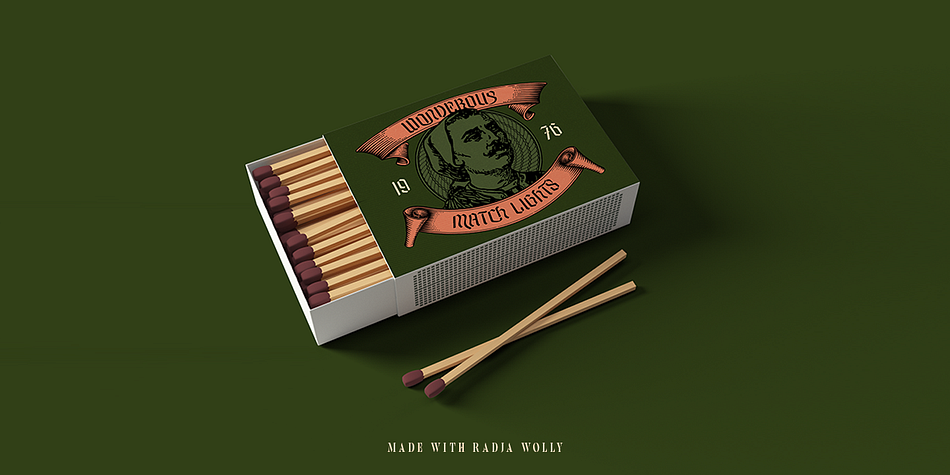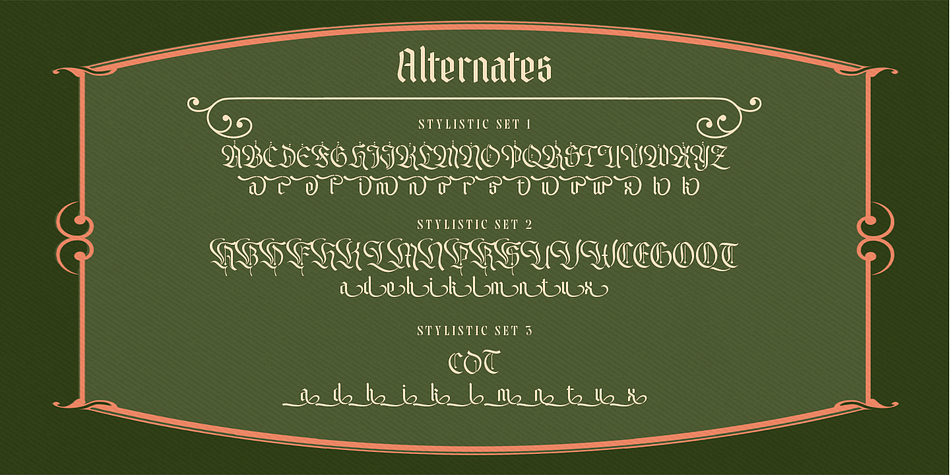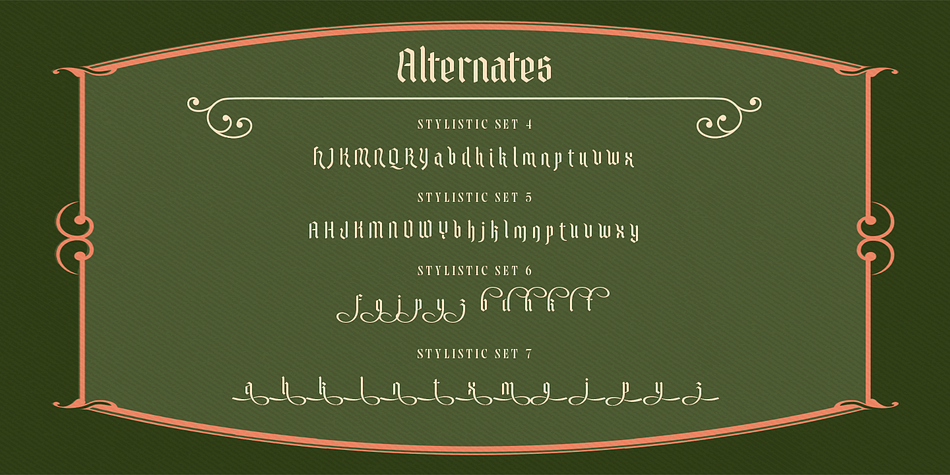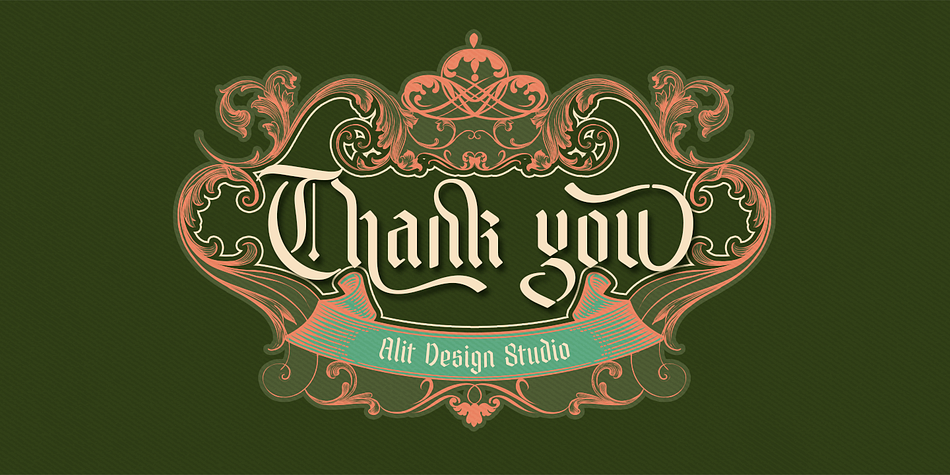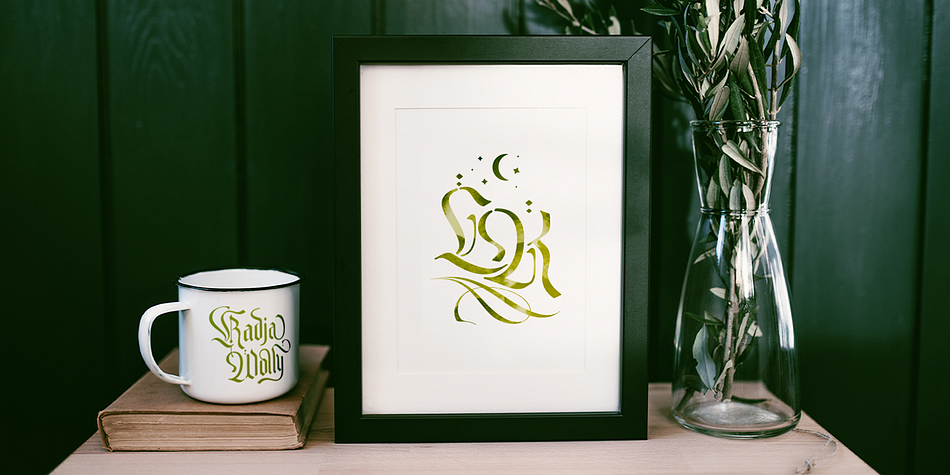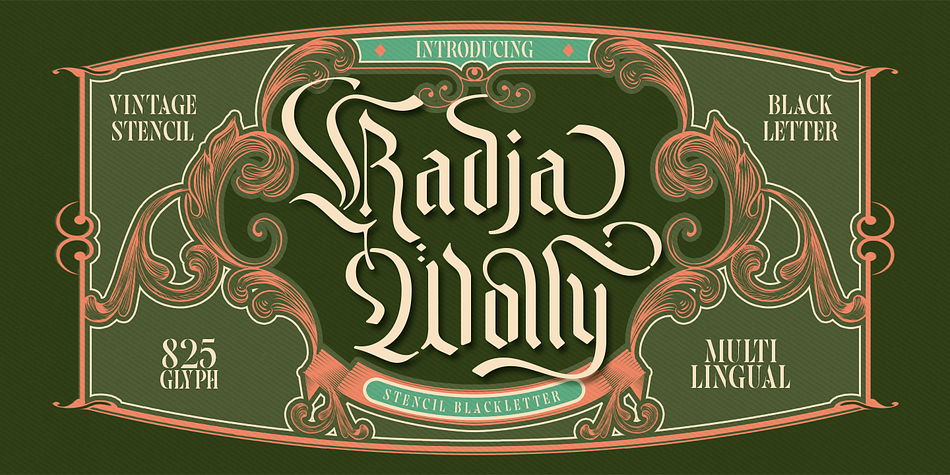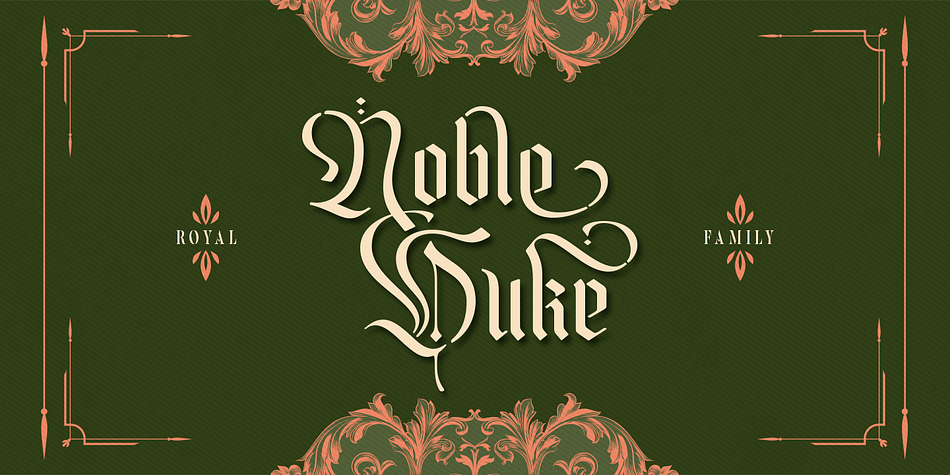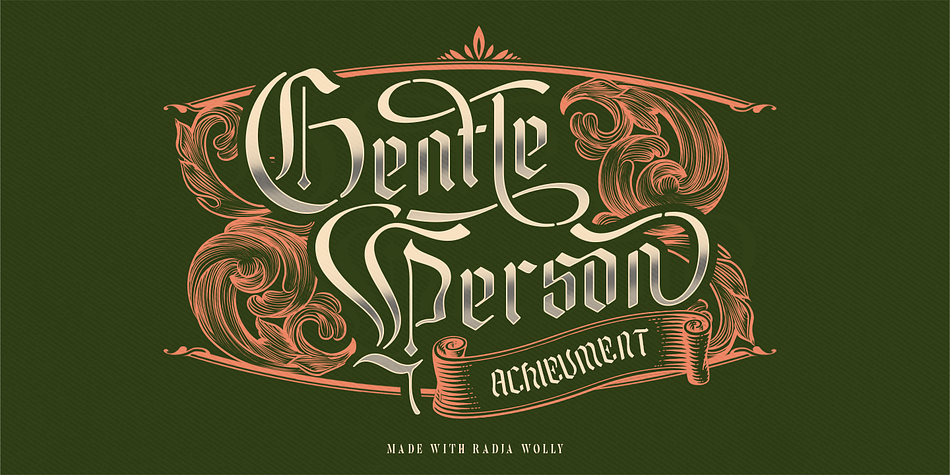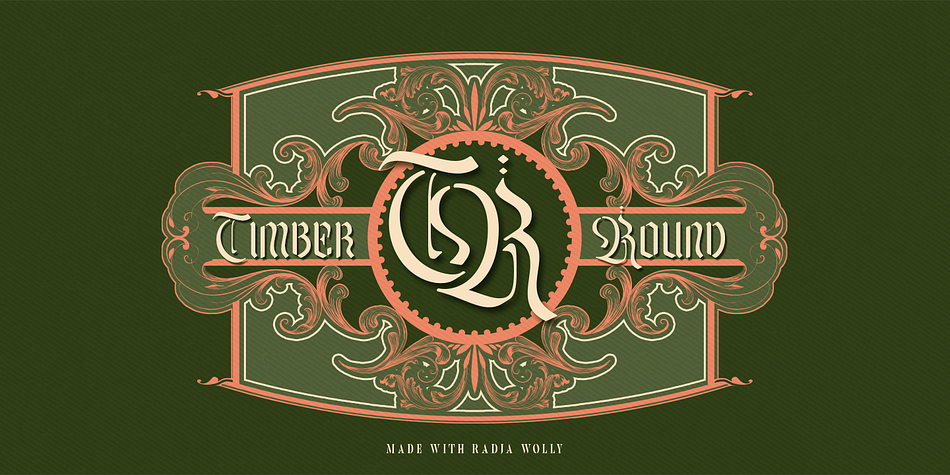
Designed by Alit Suarnegara, Radja Wolly is a blackletter font family published by Alit Design.
✒️Radja Wolly✒️is a font inspired by the Blackletter typeface, made with a modern impression but still looks strong and stencil tyle. Supported by alternative options such as swash, ligature and alternative characters, making The Radja Wolly Typeface very easy to create designs with strong or vintage themes. In addition, The Radja Wolly Typeface font is also supported with multilingual characters that can be used in several international languages.
The Radja Wolly Typeface is very suitable for use in making music album cover designs, tattoo logos, wishkey labels, packaging pomades and so on which are made with dark and strong concepts.